Within typography’s anatomy, there is an element called Baseline. Practically, Baseline could help you position the typography in the design with balanced alignment. Additionally, baseline typography plays an essential role in design to create a satisfying visual look.
Do you know how the Baseline could enhance your design value? Scroll down this article to discover new facts about Baseline in typography’s anatomy.
The look of typography arrangement could influence user experience, especially the visual balance. Hence, typography’s anatomy is important to determine the proportion of the design. One of them is the Baseline, which points to a limit line in typography that is straightly inline.
Since the line is most likely to be horizontal, it can help to align the typeface order to serve design harmony. It is also able to highlight the point of focus and drive the audience’s perspective. You can put a brand name in the center with matching typography that would enhance brand identity.
Baseline typography also connects to Ascender, Descender, Cap Height, and X-Height to examine the size of the typeface. It is adjustable to various font styles and sizes, and it will create glyphs.
Glyphs are the various styles of particular styles that are created by customized ascenders and descenders. For instance, the letter can vary by the descender length that depends on the message.
The matching typography aligns harmony within the baseline, allowing you to create a clean design look. To improve the harmony, you can use a Baseline grid to maintain the typography.
With the baseline grid typography, your typography in design would serve consistency in arrangement. It will maintain the line spacing to elevate the readability level and recognition of the design.
In contrast, missing the Baseline application can cause text to crash and a messy design look that would influence user experience. It will leave a miss impression of your design, and it serves a poor effect on the message delivery.
The grid in baseline typography is important to elevate design value to look more professional. You can customize the baseline grid using InDesign software by setting up the Edit > Preferences> then choose Grids. The horizontal lines will help to start over the typography positioning.
To make it smoother, you can customize deeper into the Layout, then choose Margins and Columns. The number of margins will determine the starting point for putting the text in the design.
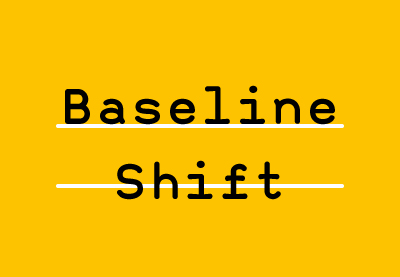
The visualization of the baseline shift issue | Source: Envato Tuts+
However, there is a common issue that occurs due to the shifting of the pixel size that goes downward. The issue is Baseline Shift, when the typography is unable to stand inline and stay in the center. It is a crucial concern for designers since the lack of it can ruin the entire design look.
Fortunately, particular design software provides a solution to fix the issue, such as InDesign. You can use the Baseline Shift option in InDesign to readjust the typography position.
Open InDesign software, in the Character panel available the option to can adjust the font position, whether above or below the line. Then, open the Edit option > Preferences > Unit & Increment > Baseline Shift to set up the baseline typography to become the default.
Moreover, InDesign allows you to customize the case of typeface with balanced Cap Height size. You can select the element, then go to the Character panel, and decide whether to adjust All Caps or Small Caps.
The example of Cap Height to fix baseline issue | Source: Adobe
For instance, InDesign will adjust the small caps to a smaller size than the original size of the capital letter. It will create a harmony for the typography to keep it in line, even with additional numeric fonts.
Moreover, InDesign can adjust the ligature combination to balance the typography’s ascenders by simply setting it up in the Character menu. The ligature feature can cut down the spacing lines to be closer and neater. Nevertheless, it could not ruin the readability and won’t reduce user experience.
The ligature in baseline issue | source: Adobe
The use of the anatomy of typography is such an important part to consider that your design is decent. One of typography’s anatomy is the Baseline. It is used to put the typography in straight alignment and maintain the design’s look balanced. However, an issue occurs due to miscounting the pixel size of the typography.
It causes a Baseline Shift that would ruin the whole design concept. To avoid this issue, you can use InDesign software to readjust the baseline typography. To practice the setting in InDesign and improve your typography design technique by using a software, browse Serif Typography in Zarma Type. Using Serif is most likely recommended to discover tiny details in typography. Fortunately, Zarma Type provides an affordable font that costs $1 and allows you to install it on 2 computers. It would be beneficial to use fonts from Zarma Type!